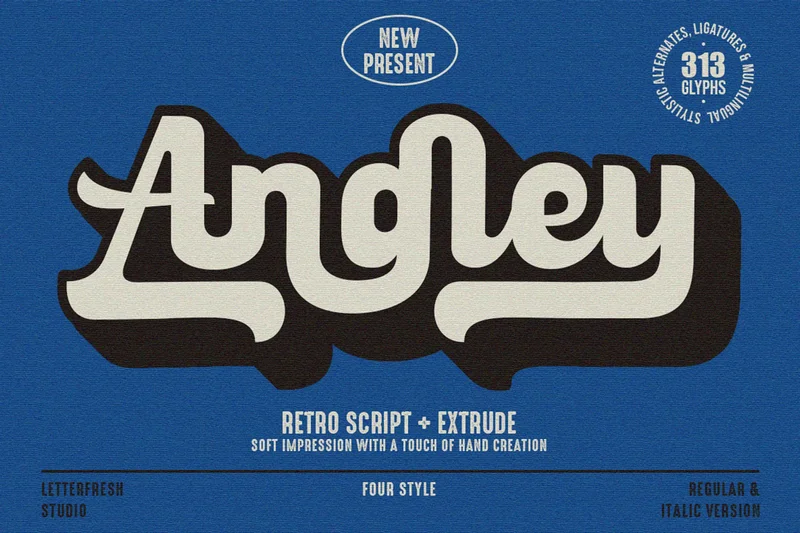
Angley Script
Angley , this font is meticulously crafted and balanced on a script typeface with a unique retro style. An extruded version is also available. You can use it for logos, badges, emblems, packaging, titles, posters, greeting cards, wedding invitations, and more.
The alternate characters in this font are divided into several OpenType features such as Stylistic Alternate, Stylistic Set, and Ligature. OpenType features can be accessed using OpenType programs such as Adobe Illustrator, Adobe Photoshop, and Adobe InDesign.